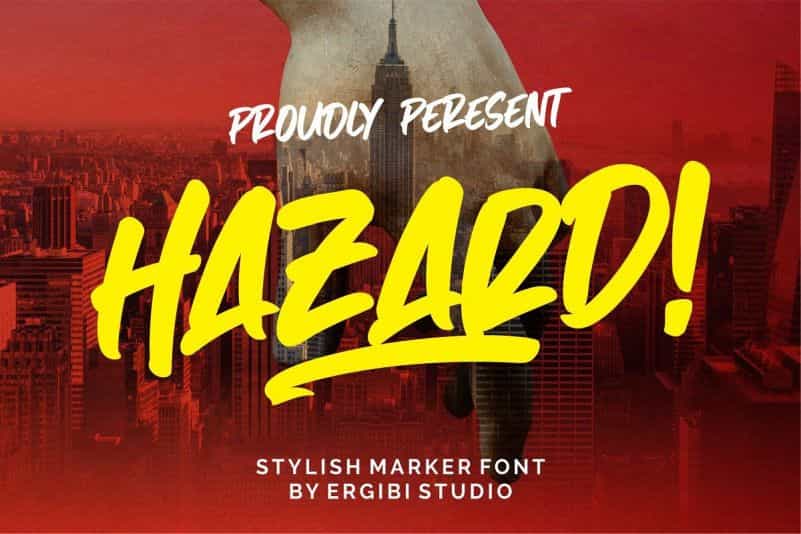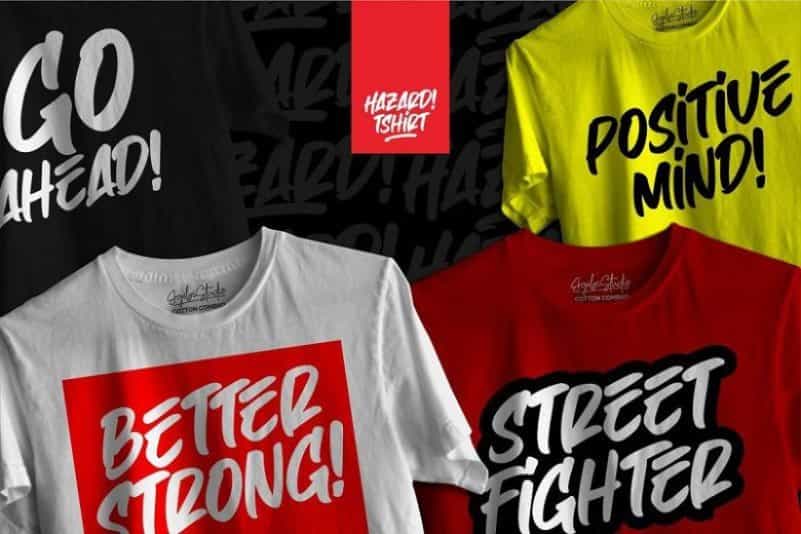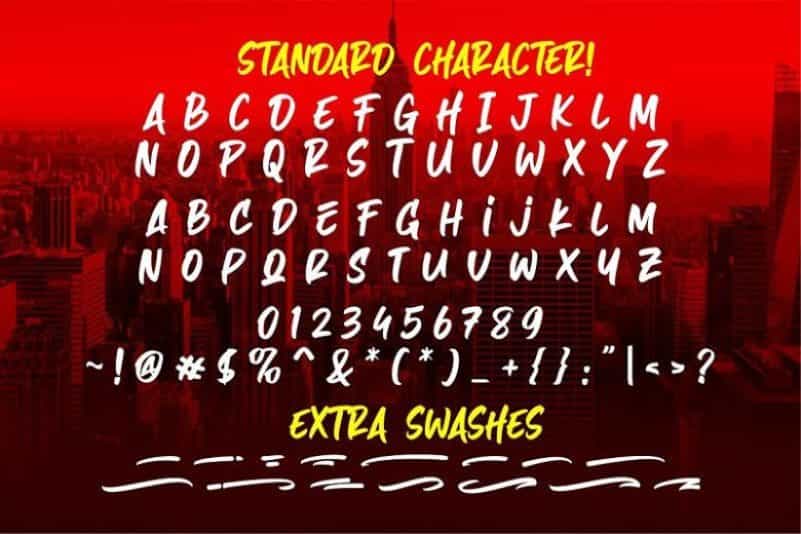
Hazard Stylish Marker Font is a brush font that has been designed to be smooth. The style is unique, this font has its own personality and when you meet with others it will give a dynamic and pleasant feeling of closeness.